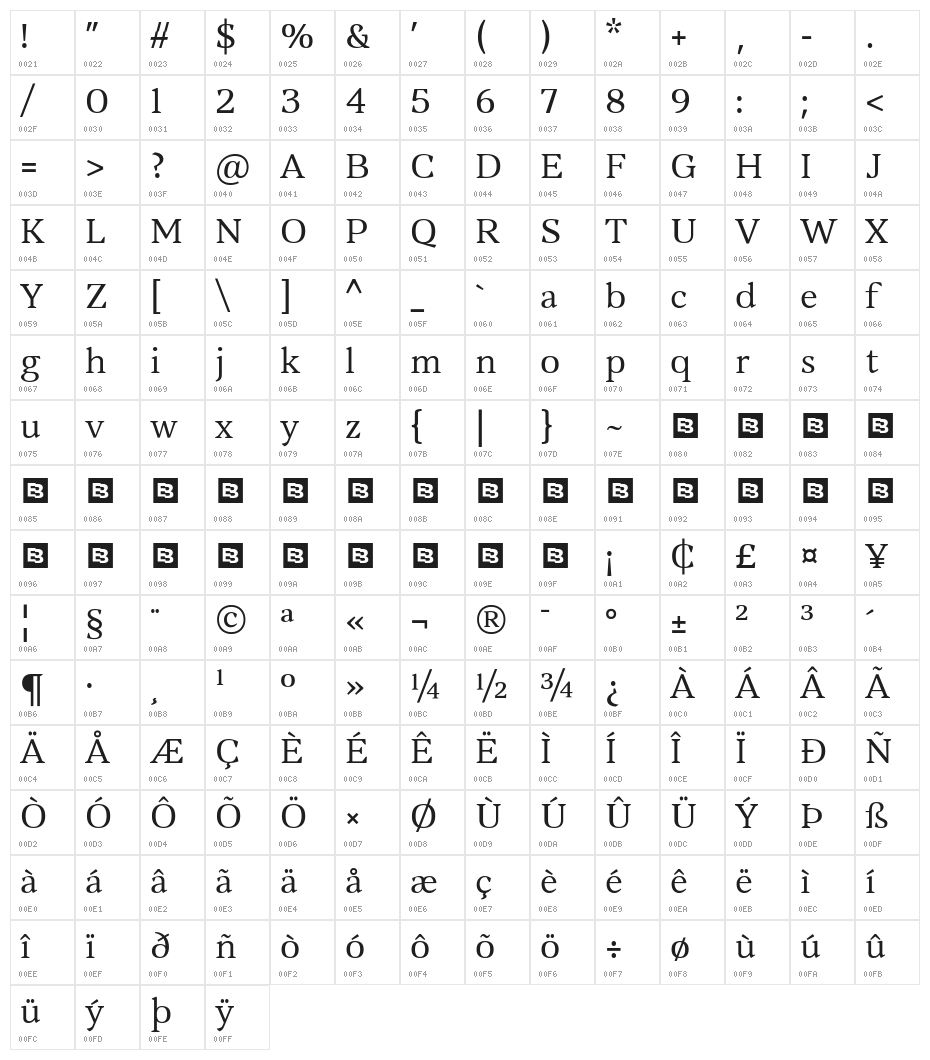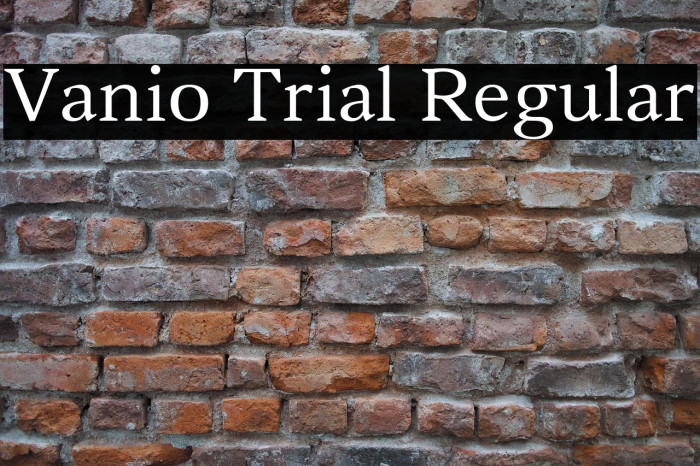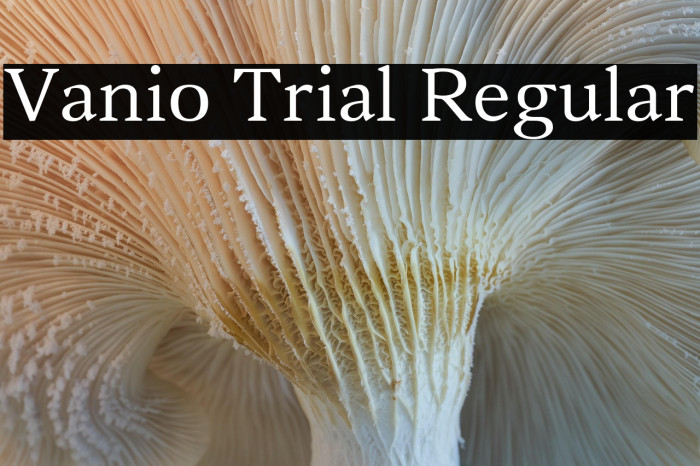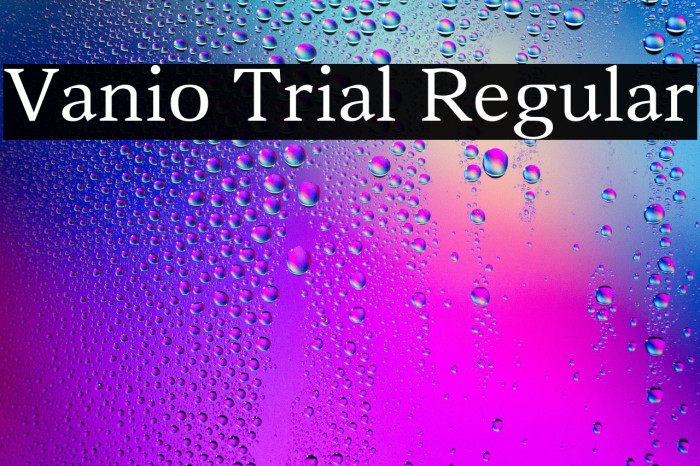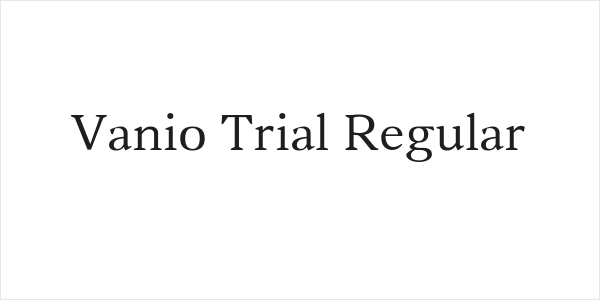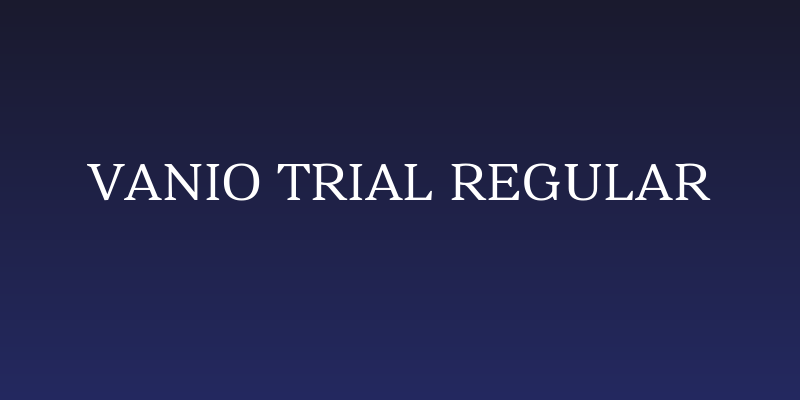
Vanio Trial Regular Font
Vanio Trial Regular Description
This font features a classic serif design with elegant and refined strokes. The uppercase letters are bold and commanding, while the lowercase letters maintain a balanced and harmonious appearance. The numerals are clear and distinct, making them easily readable. Special characters are well-integrated, maintaining the overall aesthetic of the font. The serifs are pronounced, adding a touch of sophistication and tradition. This font is versatile, suitable for both digital and print media, and can be used to convey a sense of professionalism and reliability.